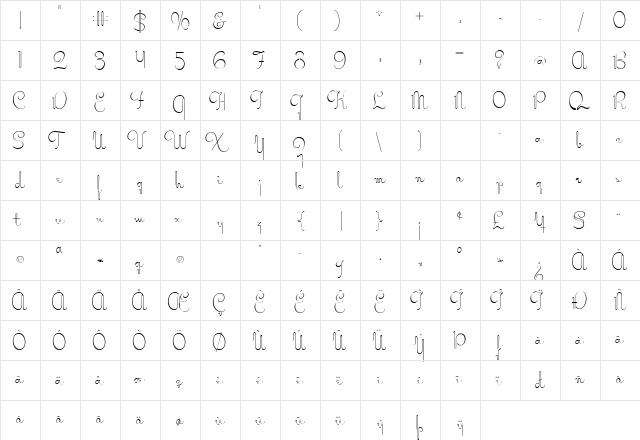
Miss Stephams Regular
| Foundry | SUDTIPOS. Expanded and digitized from the Bluemlein Script collection by Alejandro Paul |
Design Context for Miss Stephams Typeface
Miss Stephams is a composed and adaptable typeface that performs quietly and consistently across a wide range of design contexts.